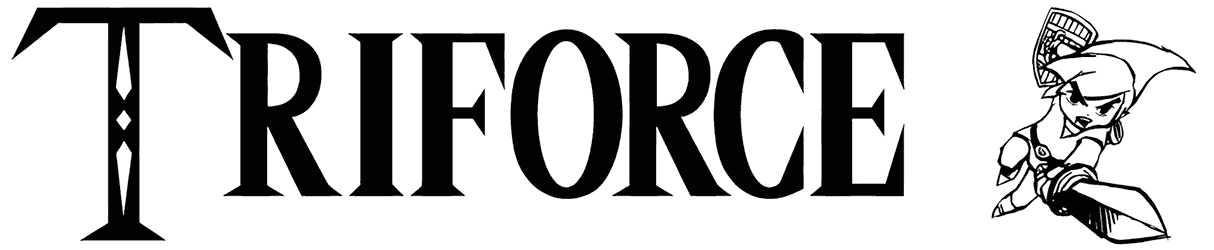
Triforce Font
With the outward that was used in the old contexts, you can win the hearts of lovers of this style. As a fantasy font, Triforce has a unique and vintage vibe that would be an eye-catching option for many creative designs…
With the outward that was used in the old contexts, you can win the hearts of lovers of this style. As a fantasy font, Triforce has a unique and vintage vibe that would be an eye-catching option for many creative designs, from book covers to games. It doesn’t possess lowercase, but covering two sets of caps and little warriors will make up for this lack.